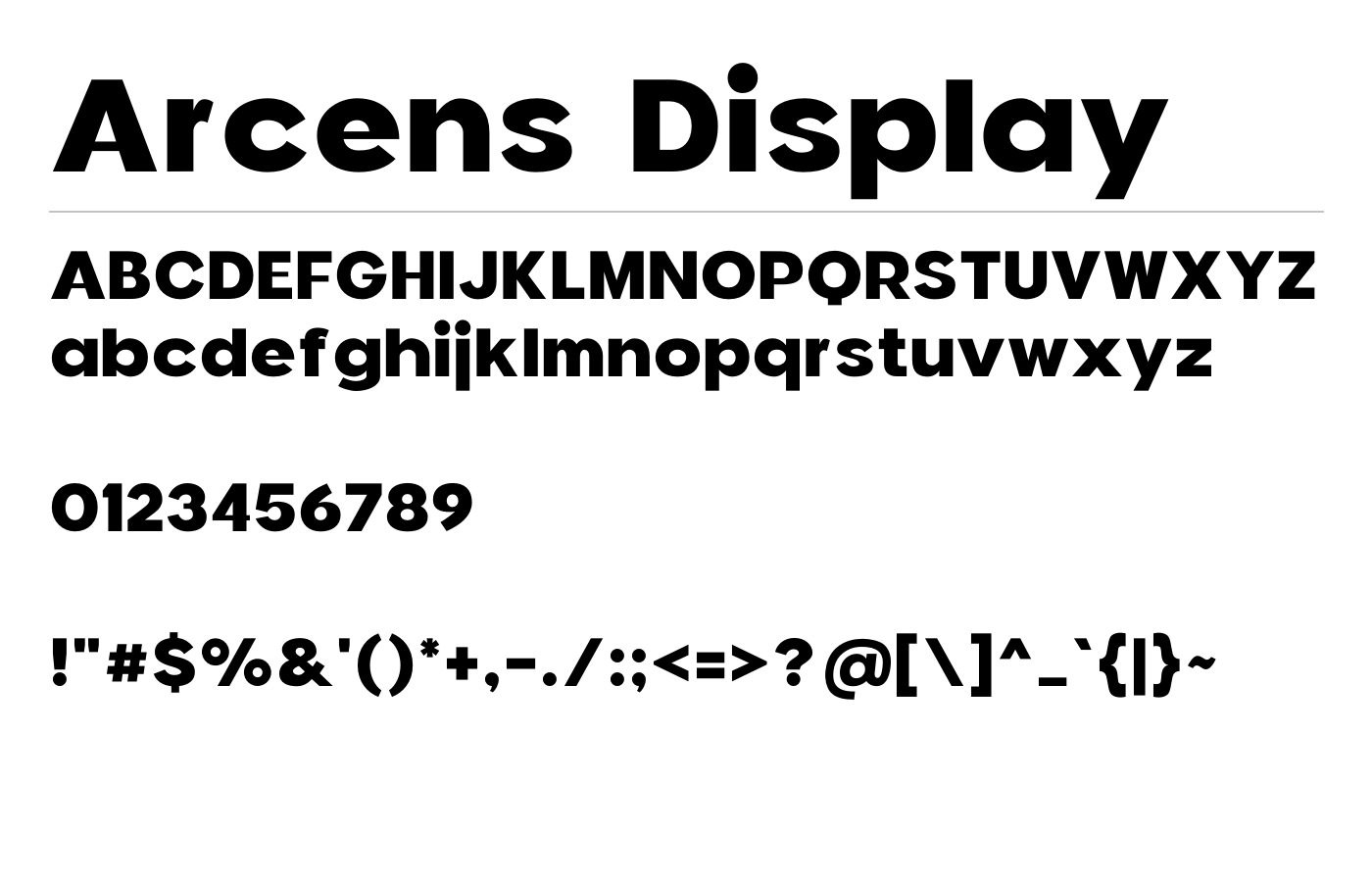
Arcens Display is a bold, geometric sans-serif font with a strong presence and clean lines that create a modern and approachable feel. Its wide letterforms and high x-height make it highly readable, while subtle curves add a friendly touch, making it perfect for branding, headlines, and any design requiring impactful clarity with a contemporary edge. This font works well for websites, packaging, and editorial projects where a confident yet inviting tone is desired.
Arcens Display Font
About Arcens Display Font
| Font family | Arcens Display Font |
| Designer | Arief rochman |